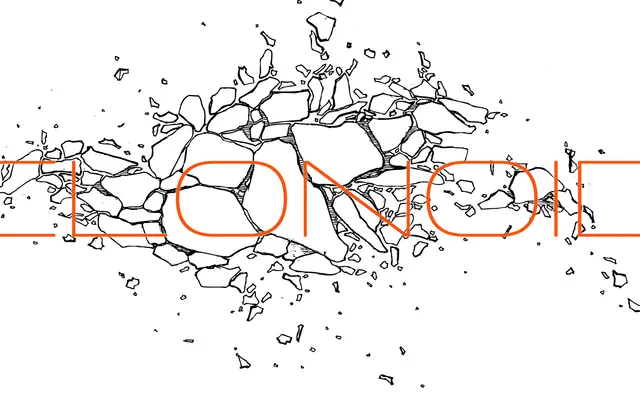
A geometric sans drawn from 1980s and 1990s arcade game logos, balancing angular precision with rounded bowls across six weights.
Inspired by the lettering of classic arcade game logos, Clonoid pairs a clean geometric structure with softened bowls and semi-rounded edges to temper its mechanical feel. Six weights from ExtraLight to Black come with matching italics, giving the family twelve styles in total. The result sits between retro-futurist display work and more everyday tech-adjacent applications.
Geometric framework with rounded bowls and semi-rounded edges places it firmly in the geometric sans category, with a retro-futurist inflection drawn from 1980s and 1990s arcade game lettering.